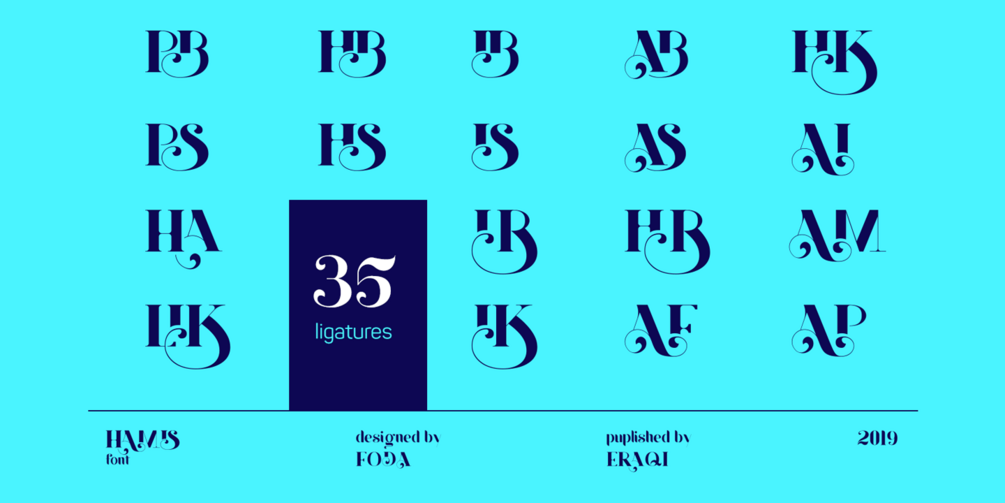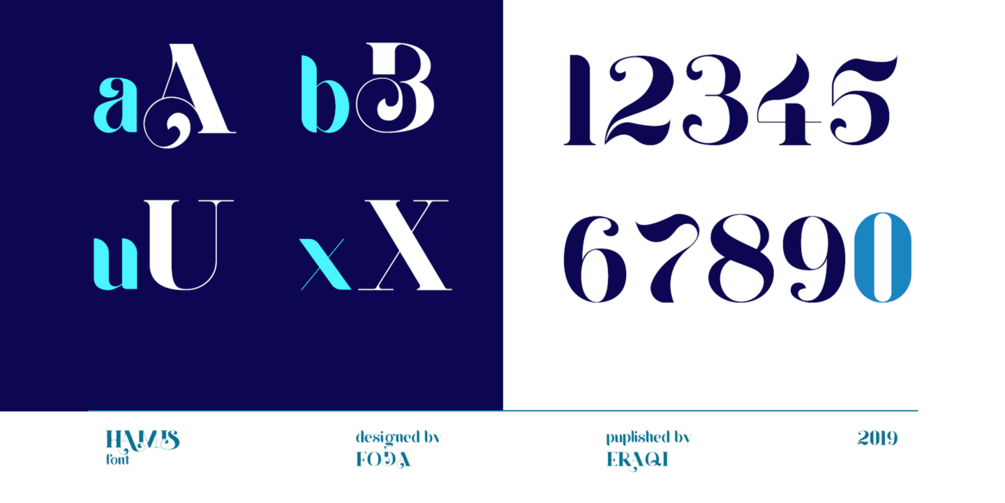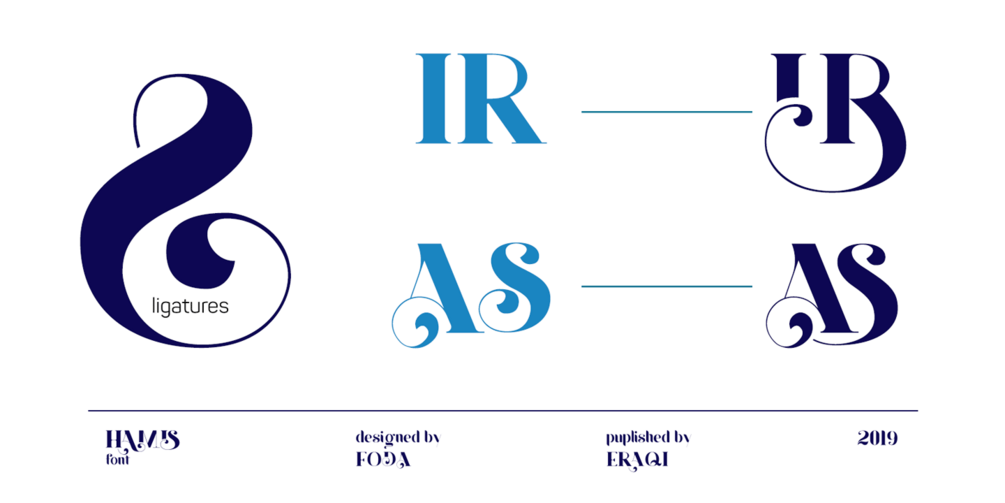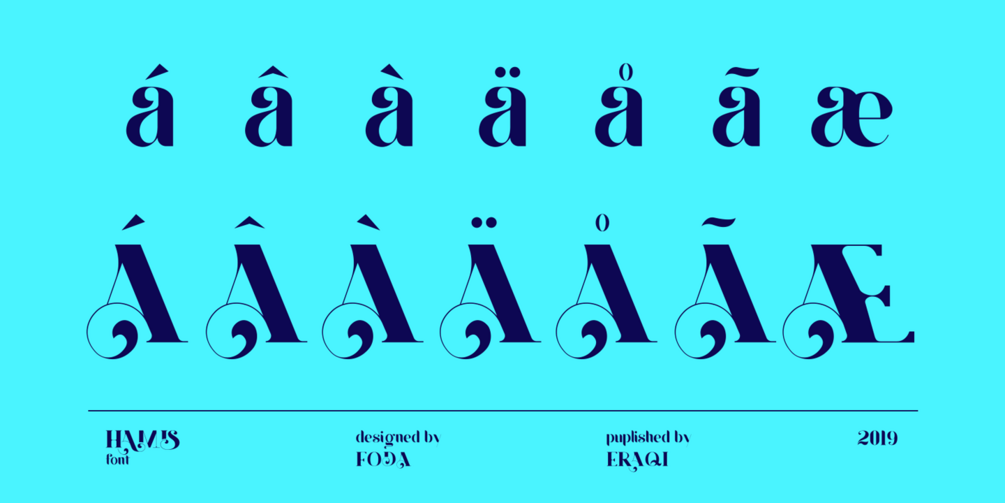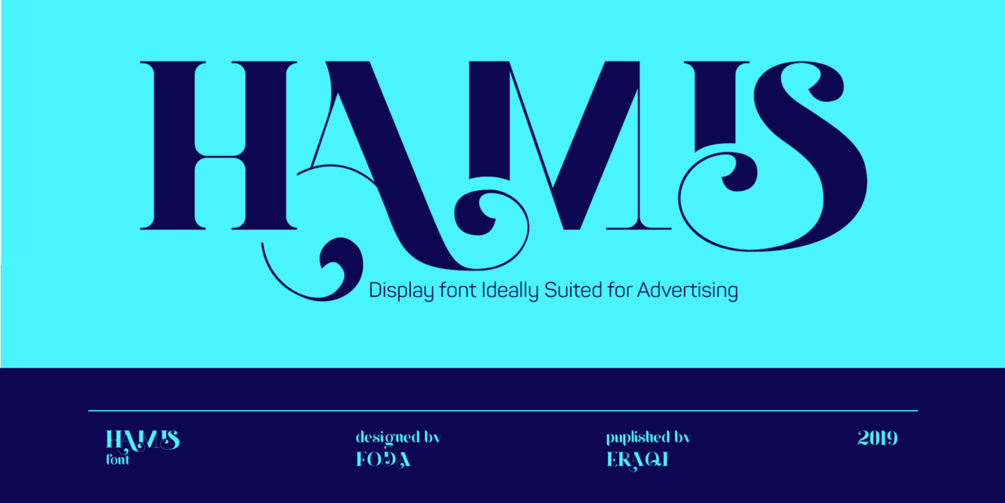
Hamis font
Hamis is a display font of a single weight " Regular ", ideally suited for advertising and packaging, festive occasions, editorial and publishing, logo, branding and creative industries, posters and billboards as well as web and screen design. Hamis provides advanced typographical support with features such as ligatures, case-sensitive forms, fractions, super and subscript characters, and stylistic alternates. It comes with a complete range of figure set options – oldstyle and lining figures, each in tabular and proportional widths.